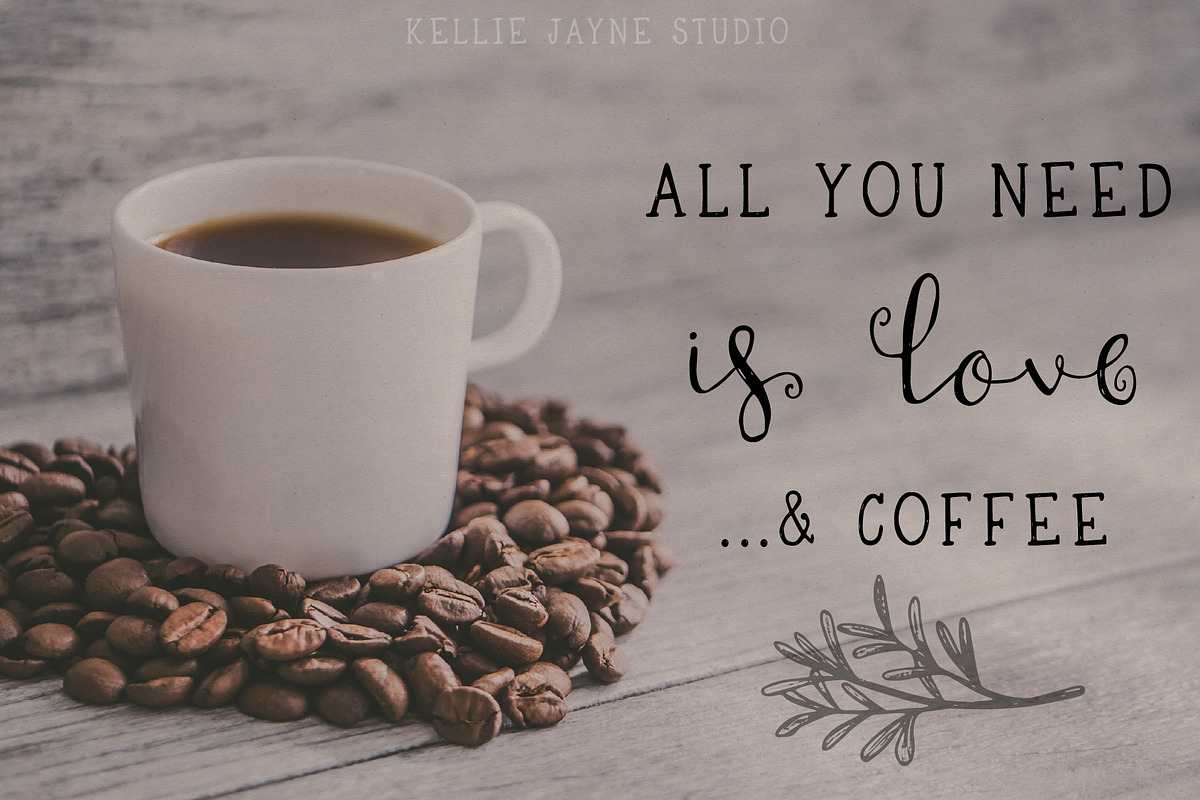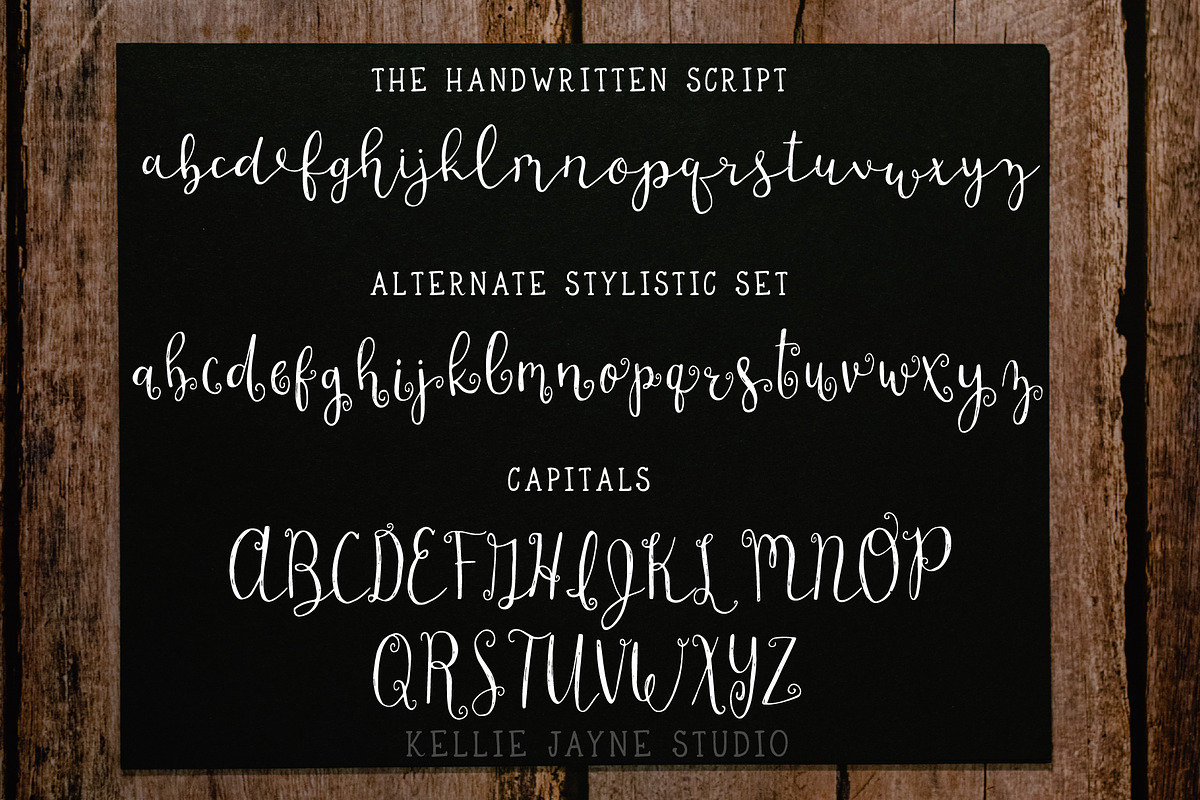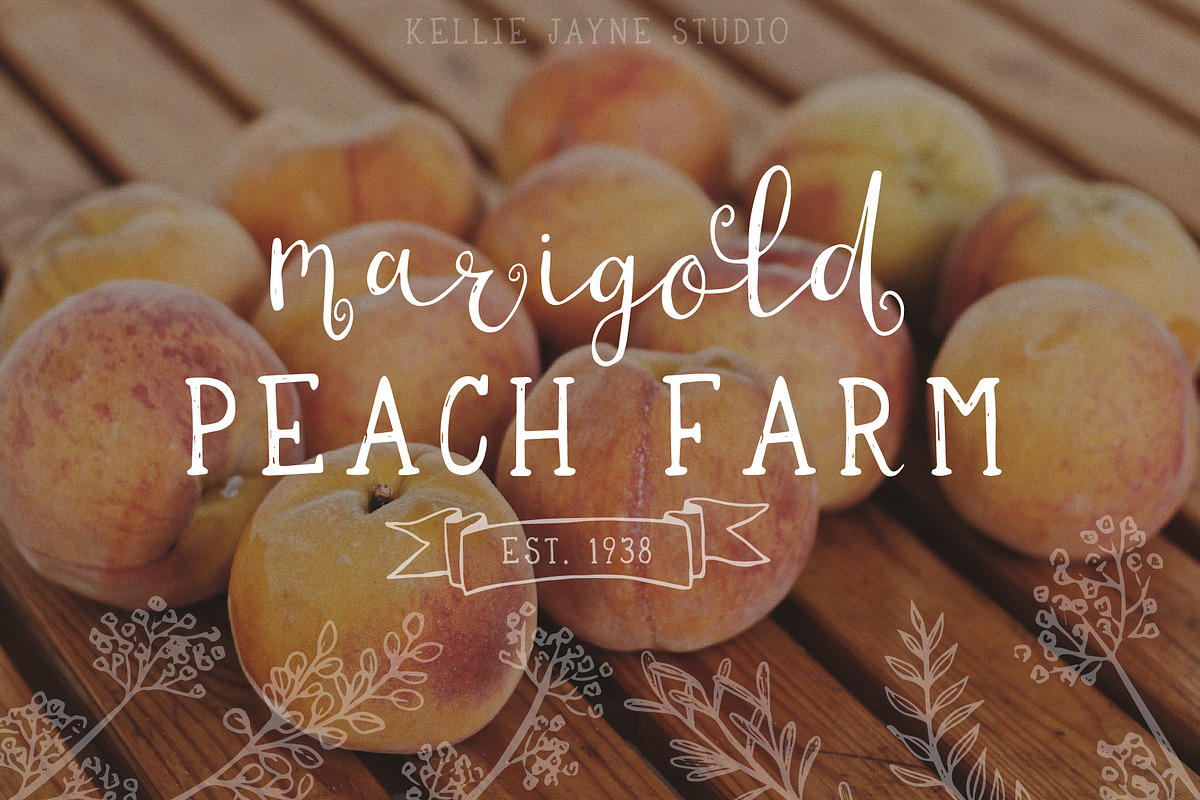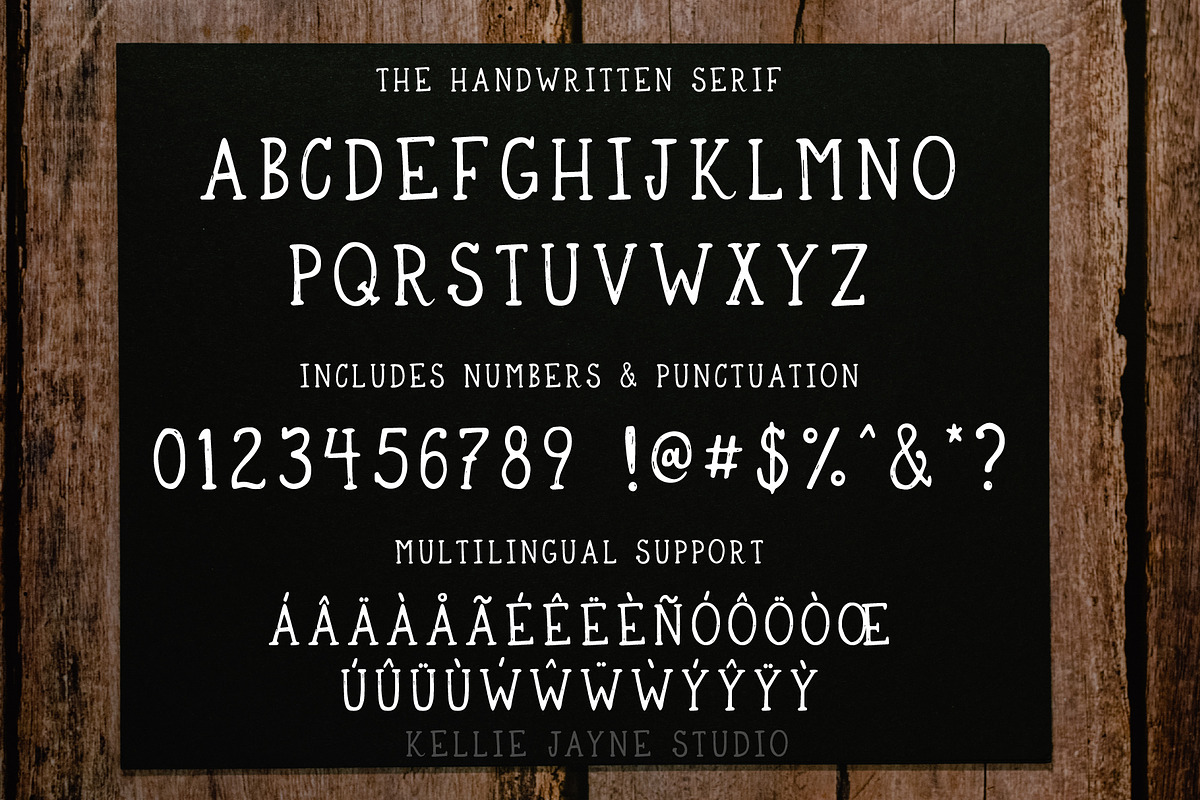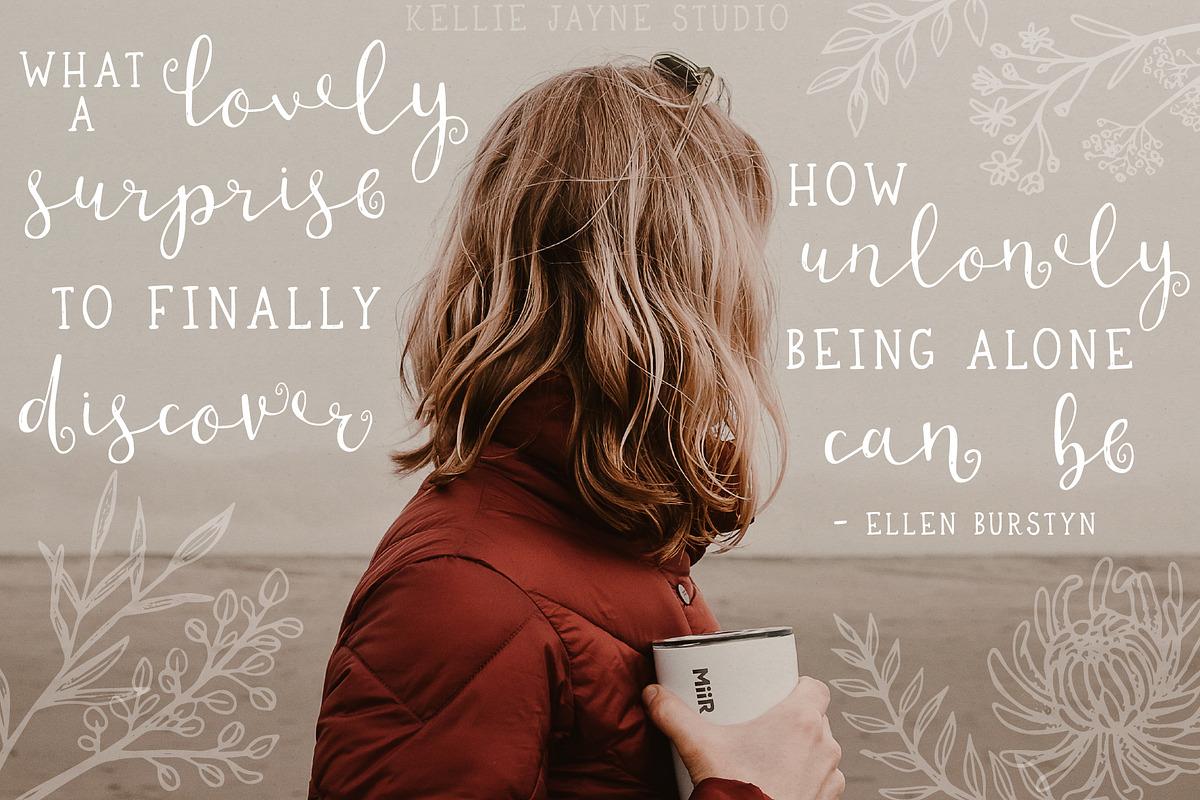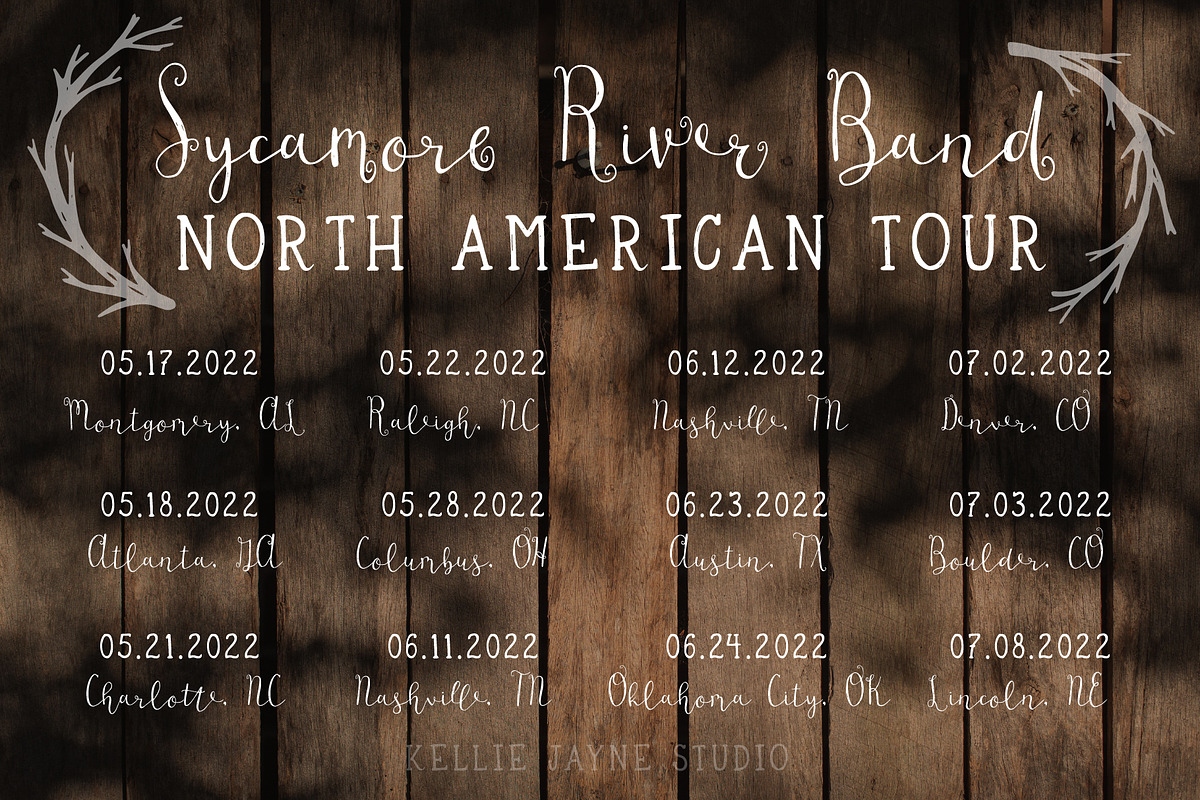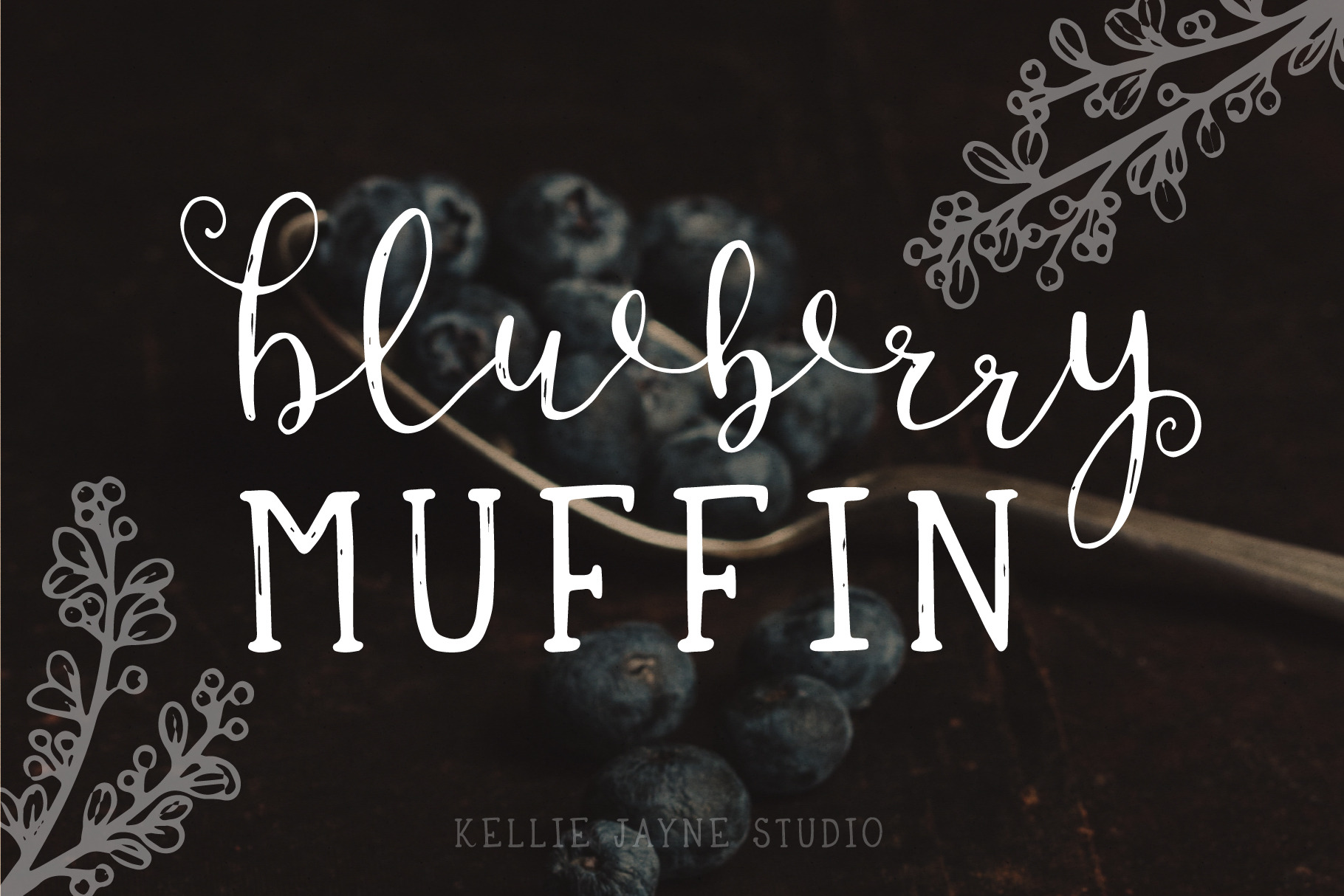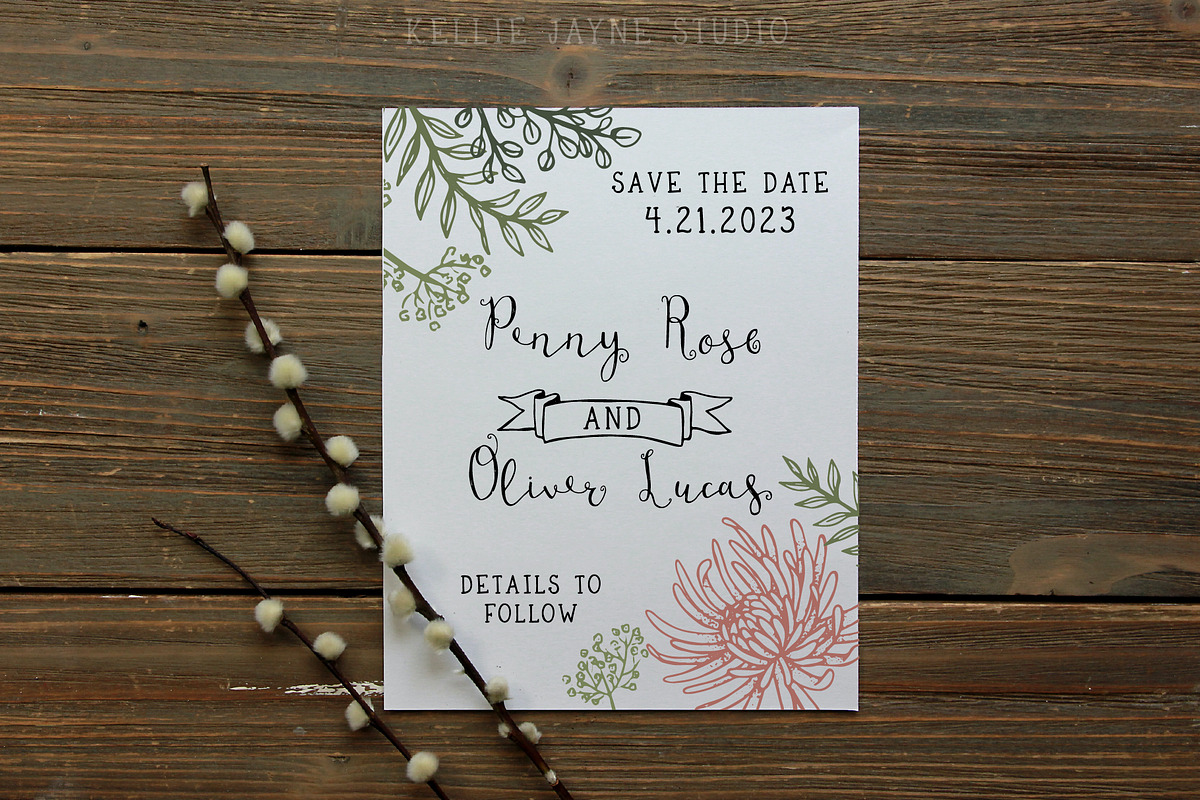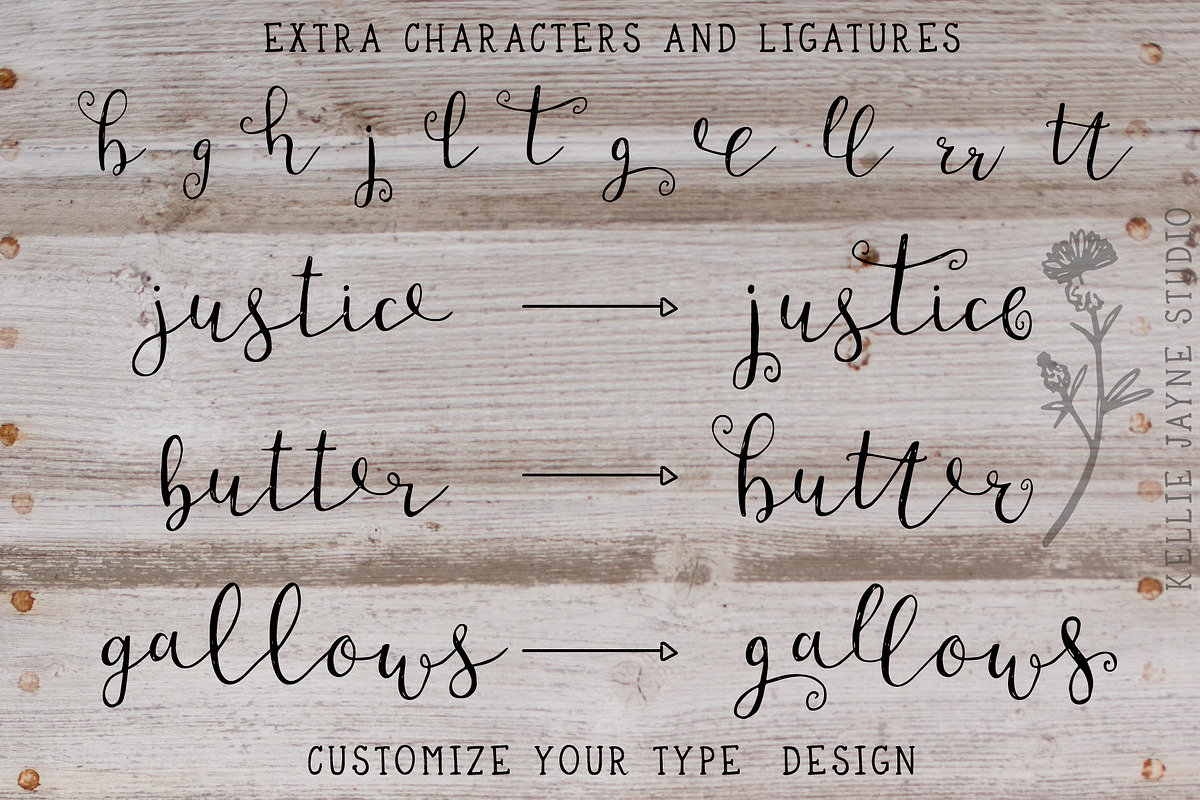
Blueberry Muffin Handwritten Font
Blueberry Muffin is a handwritten font duo that conjures the feeling of a quaint farmstand bakery selling warm freshly baked muffins. It is rustic, whimsical, and delicate.
Blueberry Muffin is perfectly imperfect.
- Open Type features such as discretionary ligatures and a stylistic set of lowercase script letters with swirls